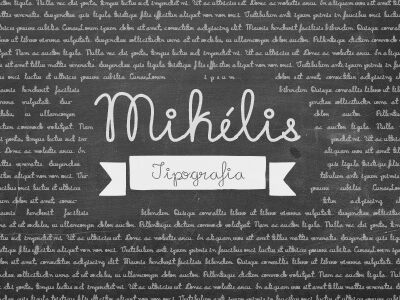
Mikelis Light is a captivating handwritten font designed by Danilo Miguel. This delicate typeface exudes a sense of organic movement and effortless elegance, drawing the eye with its fluid, expressive strokes. The light weight lends a refined, understated charm, making it well-suited for projects seeking a touch of refined sophistication.
Mikelis Light's versatility allows it to seamlessly integrate into a variety of design contexts, from editorial layouts and branding to packaging and advertising campaigns. Its unique character and legibility make it an excellent choice for titles, headers, and accents, adding a distinctive flair that captivates the viewer. Whether crafting invitations, greeting cards, or even personal stationery, Mikelis Light's harmonious blend of personality and readability ensures a lasting impression.